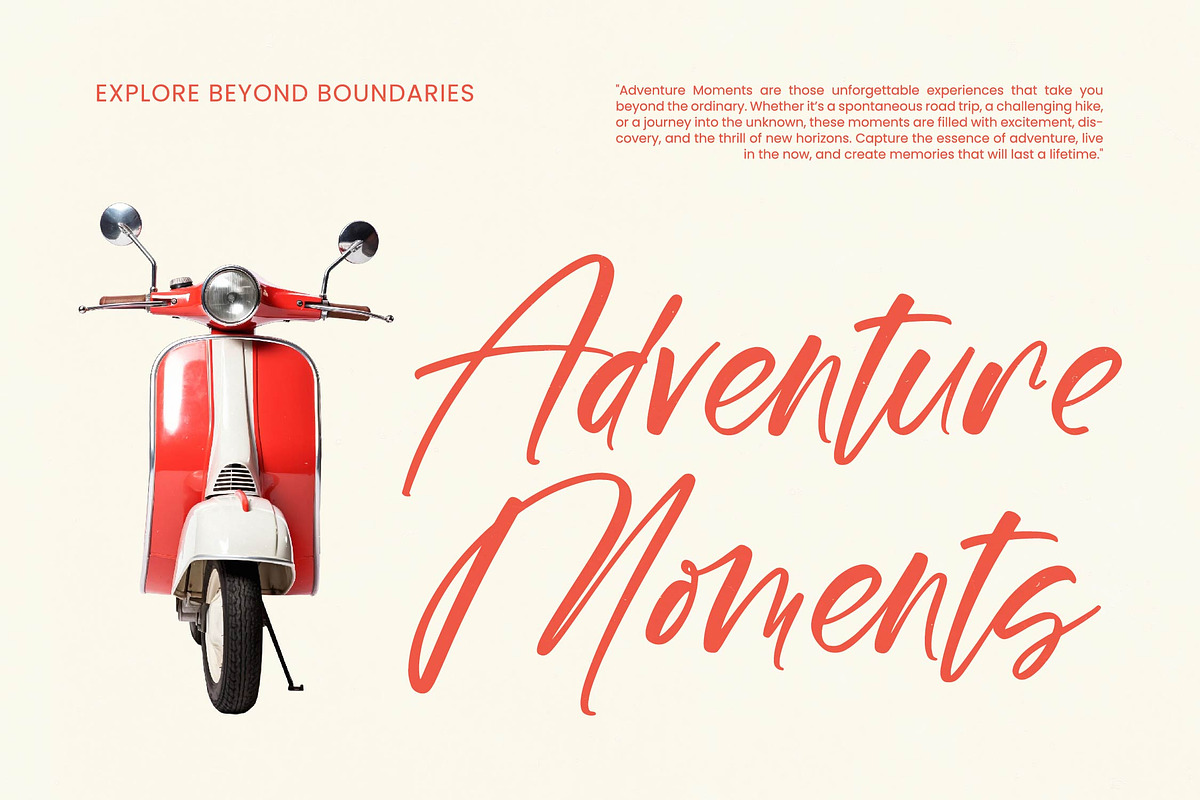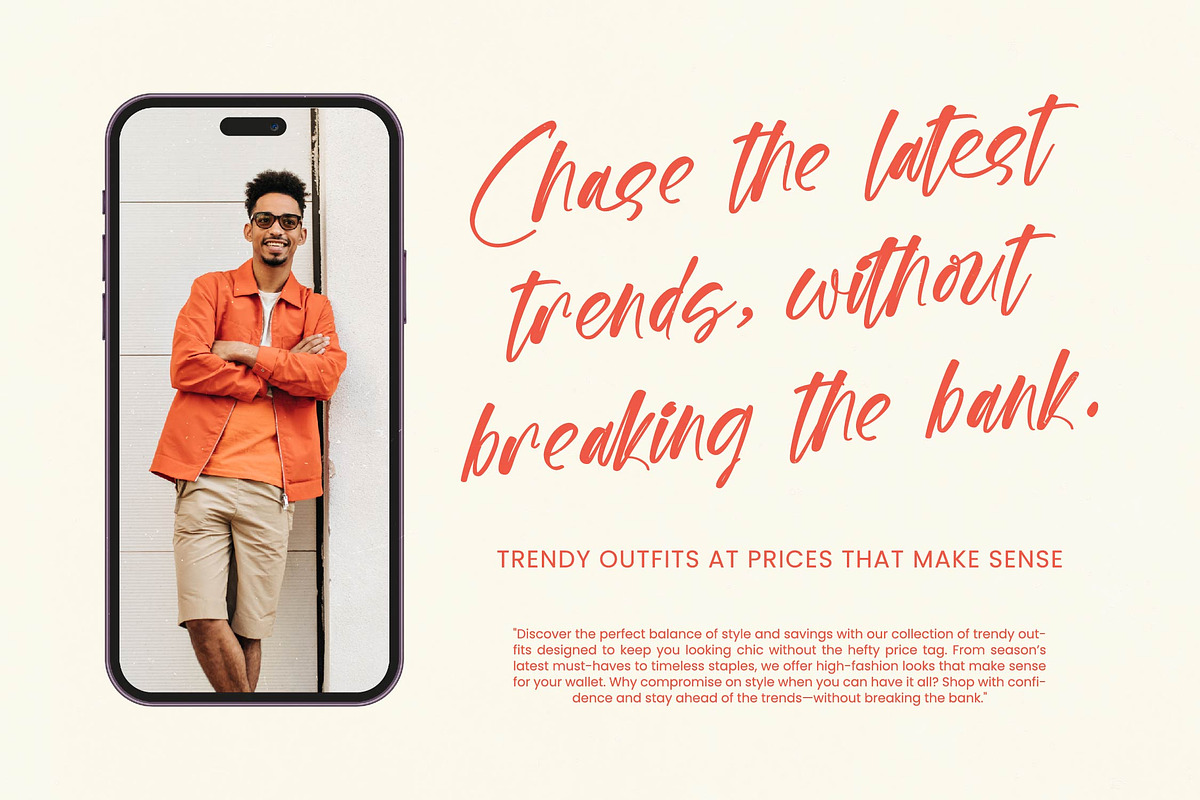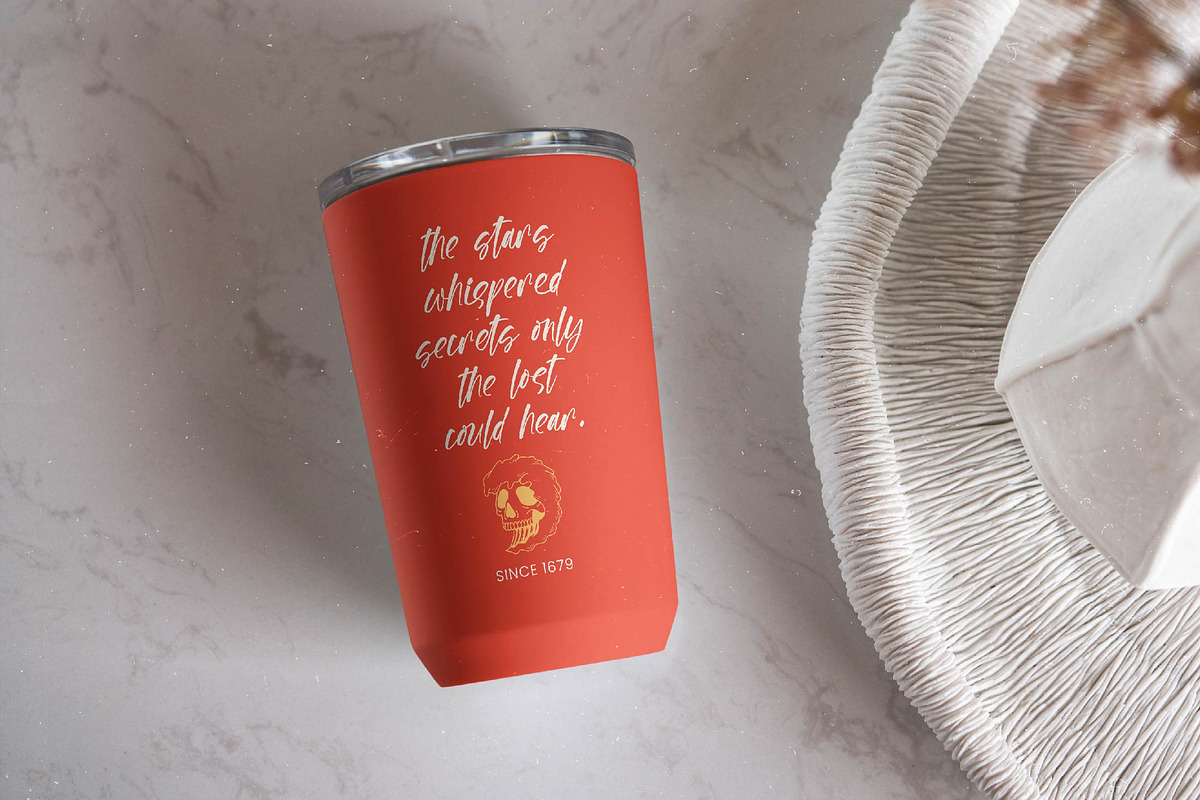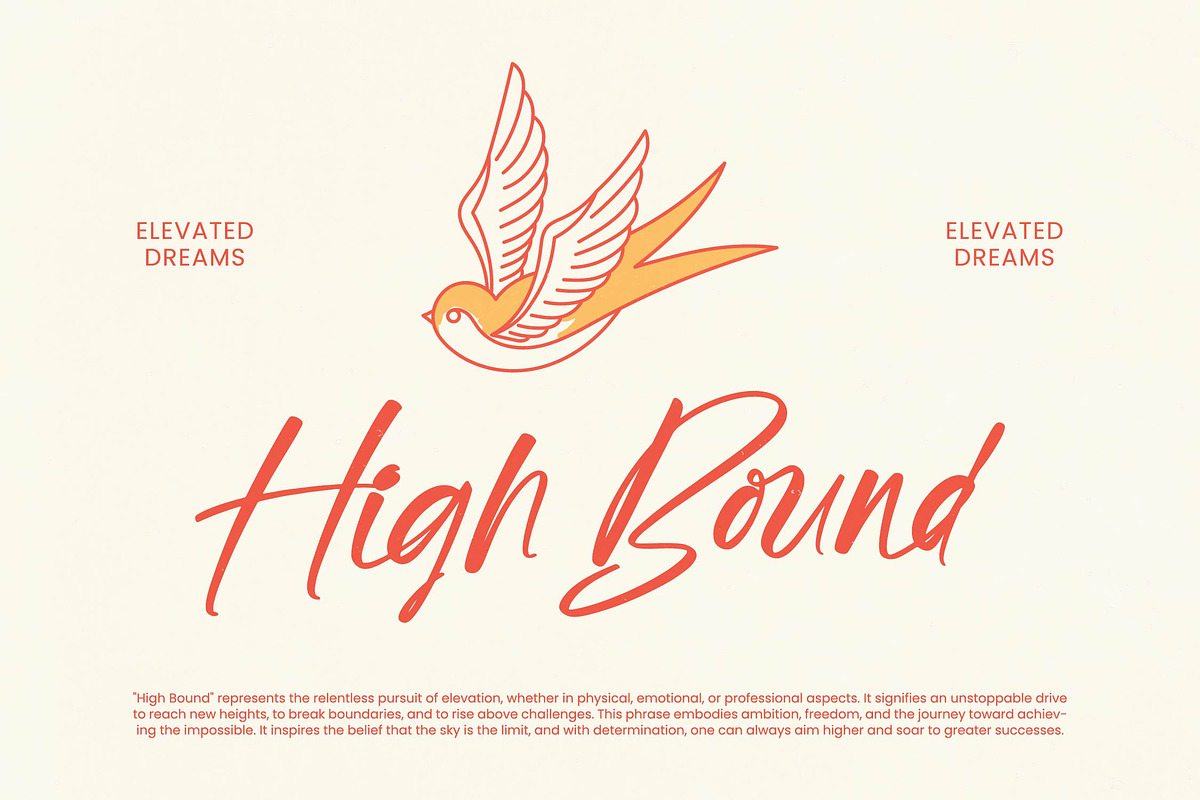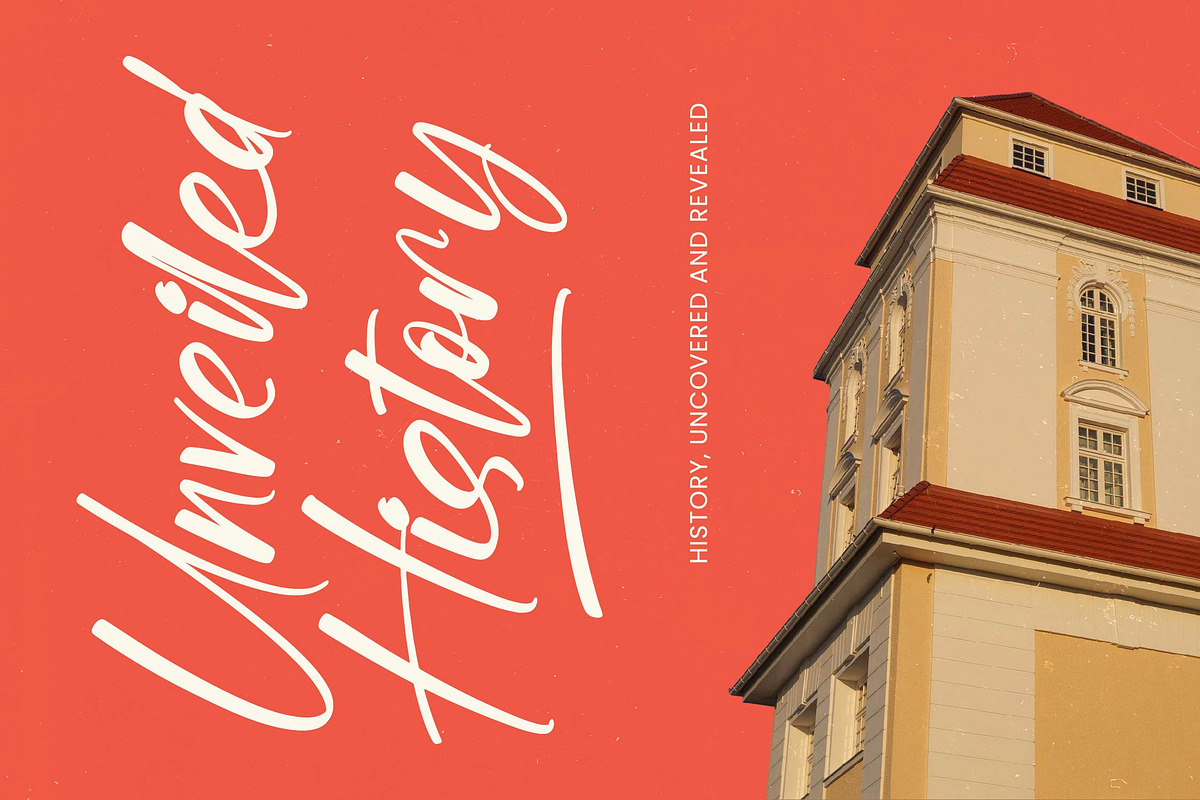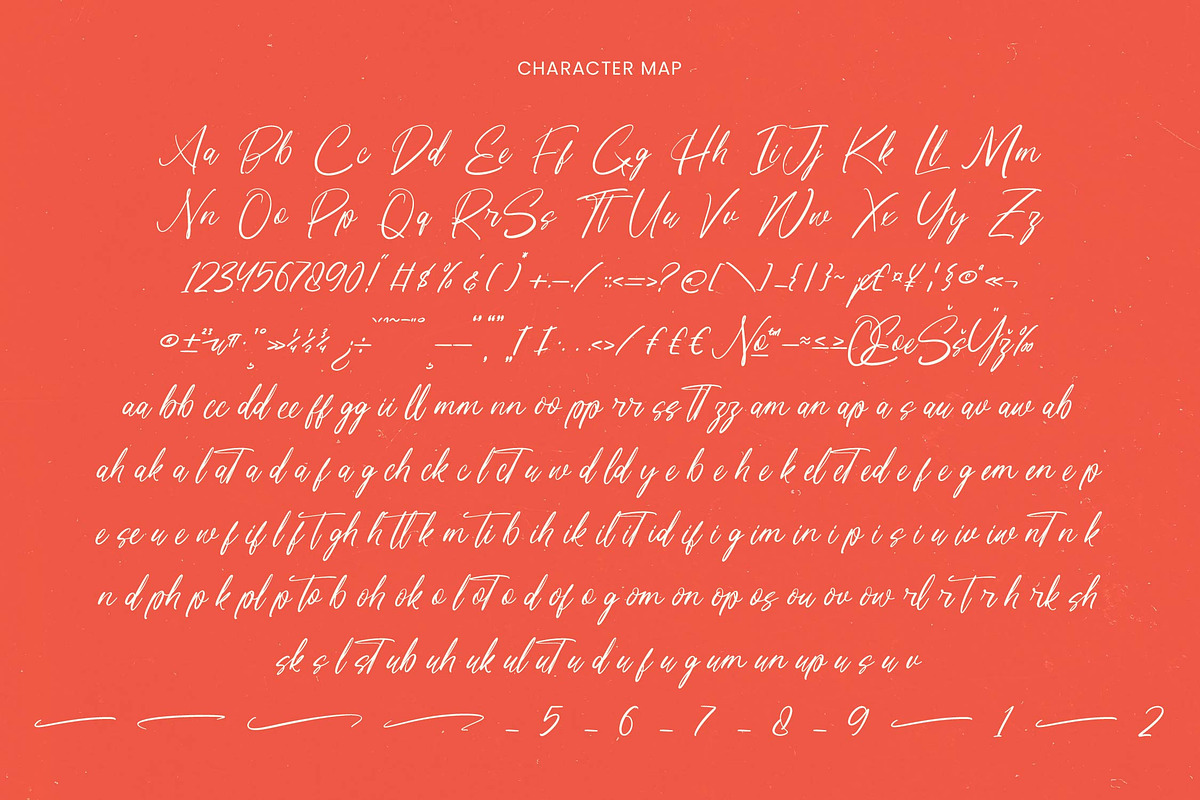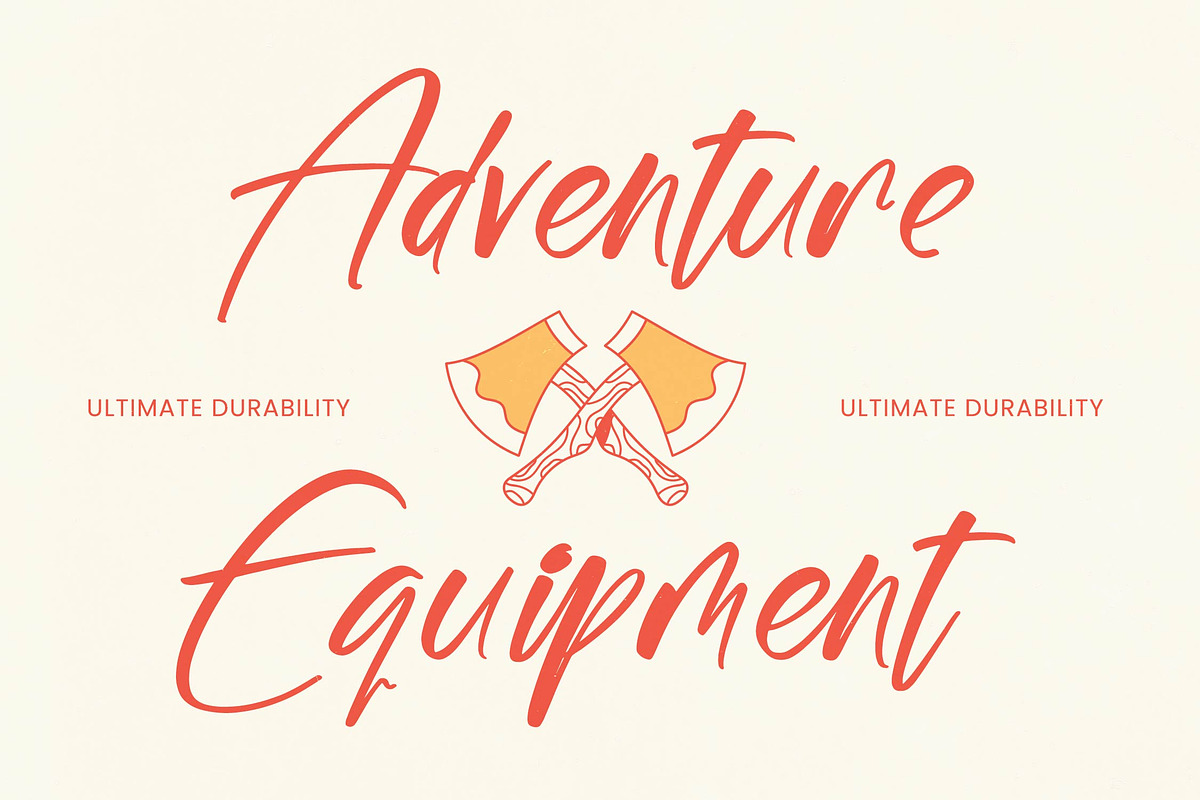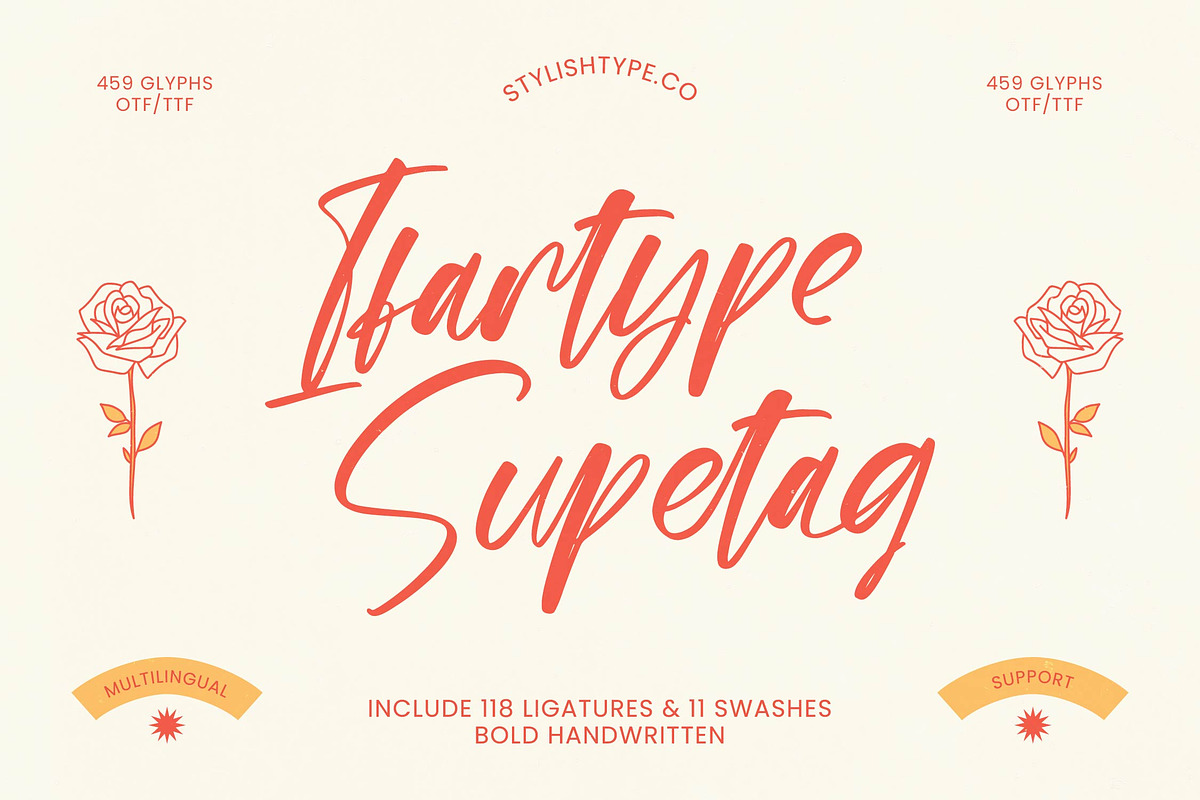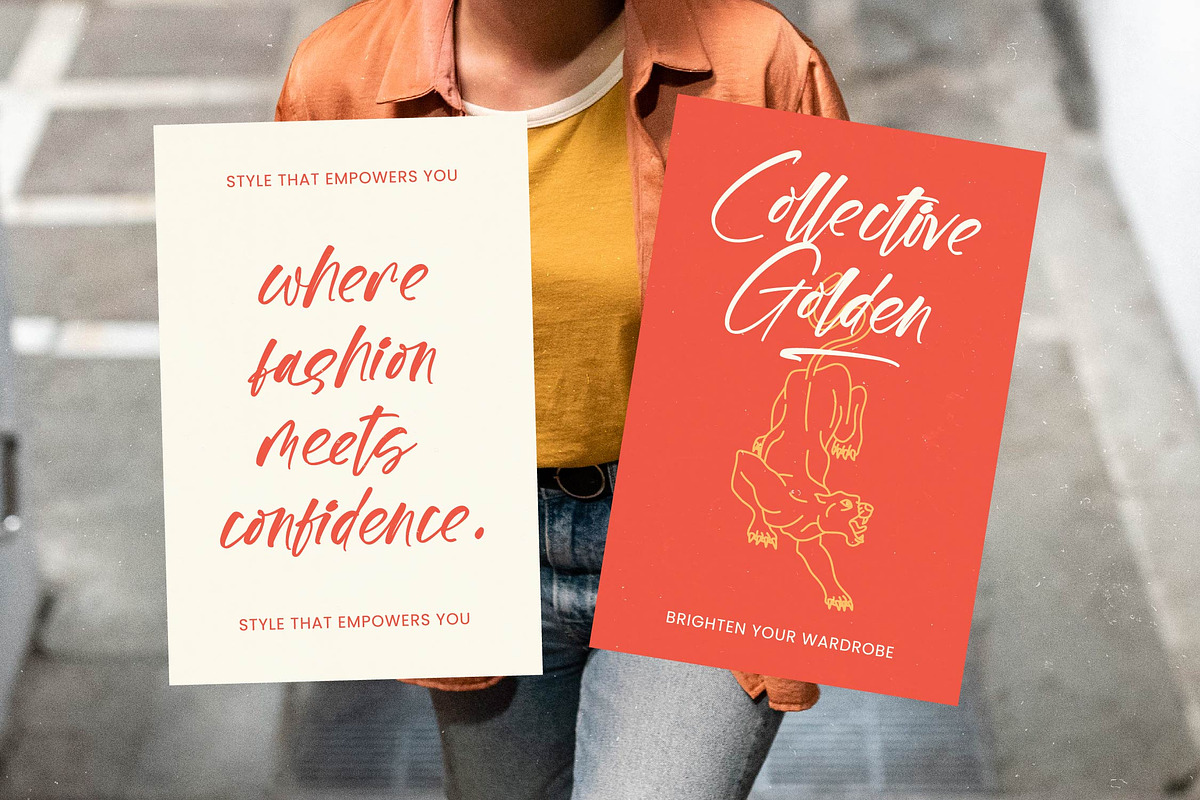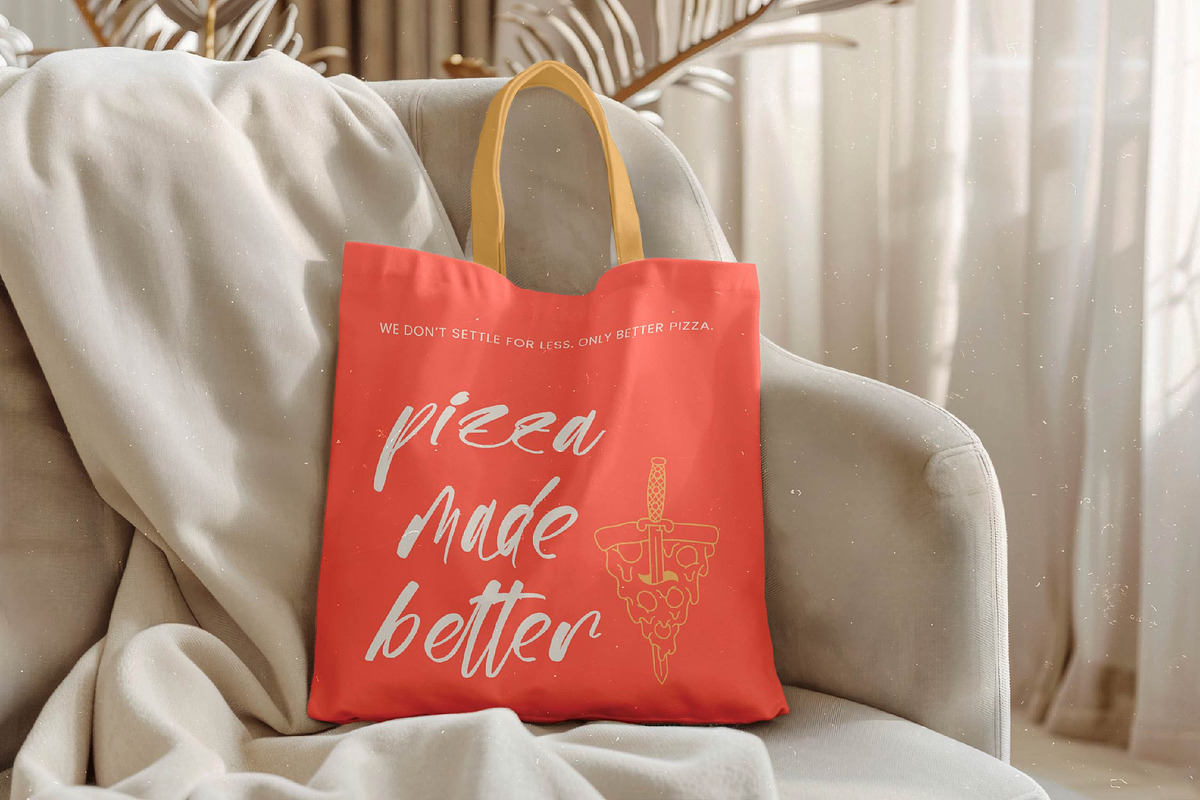
Ifartype Supetag Bold Handwritten
Ifartype Supetag - Bold Handwritten , Elevate your brand identity with a typeface that embodies raw energy and sophisticated craftsmanship. Ifartype Supetag - Bold Handwritten offers a dynamic visual rhythm that captures the essence of authentic human touch while maintaining professional clarity. This bold handwritten font is designed to command attention, blending high-impact strokes with organic flow to create a premium aesthetic that resonates with modern audiences seeking authenticity.
Precision meets creativity in a comprehensive package built for professional designers. Featuring over 459 glyphs, including a vast array of 118 ligatures and 11 swashes, Ifartype Supetag - Bold Handwritten provides unparalleled flexibility for custom typography. These technical assets allow for seamless transitions and natural letter connections, ensuring your text looks like high-end custom lettering rather than a standard typeface, making it an essential asset for any creative toolkit.
Transform your marketing materials into compelling visual narratives with this highly adaptable script. Ifartype Supetag - Bold Handwritten is the perfect solution for luxury branding, high-end packaging, and editorial design where a personal touch is paramount. Its robust presence makes it ideal for social media graphics, product labels, and advertising campaigns that require a perfect balance of artistic warmth and professional strength.
Expand your creative horizons and reach a diverse audience without compromising on style. With its extensive multilingual support, Ifartype Supetag - Bold Handwritten adapts seamlessly across global markets, making it incredibly versatile for international projects. By choosing Ifartype Supetag - Bold Handwritten, you are investing in a versatile design tool that guarantees a consistent, authentic voice across all digital and print platforms regardless of geographical boundaries.